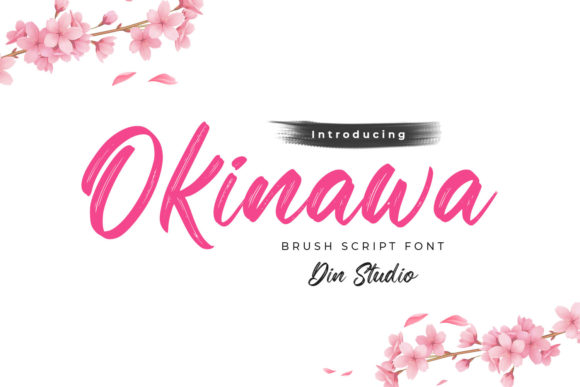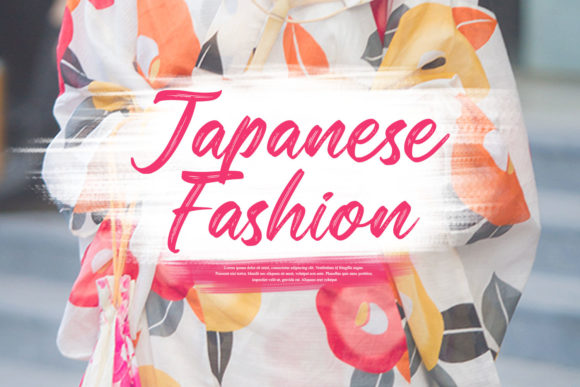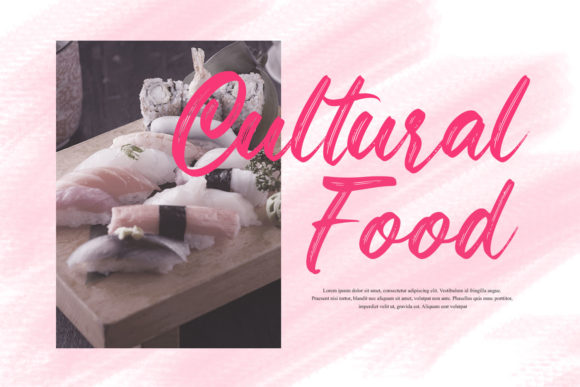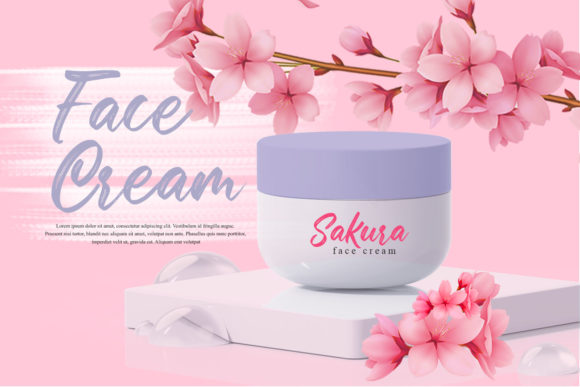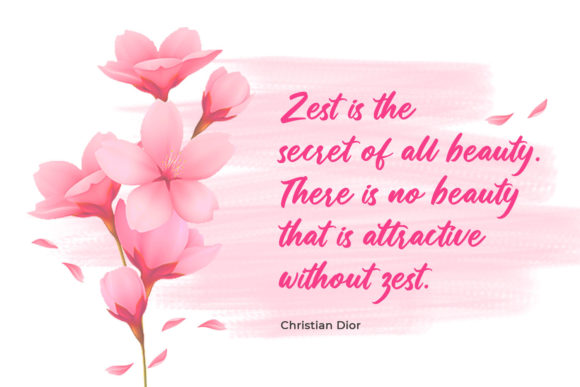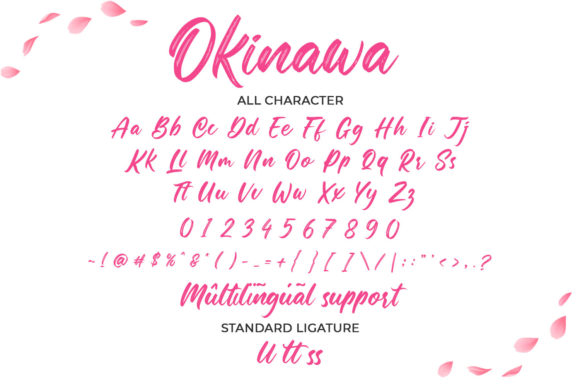
Okinawa Font
About Okinawa Font
Okinawa is a captivating and flowing handwritten font that exudes elegance and style. Created with the aid of an exceptional brush pen, this font possesses a natural and artistic feel, making it an excellent choice for a wide range of design projects. Here are some inspiring ways to utilize the Okinawa font and create stunning designs:
1. Wedding Invitations: Design romantic and captivating wedding invitations with Okinawa font, setting the perfect tone for a memorable celebration.
2. Thank You Cards: Create heartfelt and sincere thank you cards with Okinawa font, expressing gratitude with a touch of sophistication.
3. Quotes and Greeting Cards: Design inspiring and artistic quotes and greeting cards featuring Okinawa font, perfect for evoking emotions and sentiments.
4. Logos: Incorporate Okinawa font into logos for businesses or personal brands, adding a touch of authenticity and creativity.
5. Business Cards: Craft stylish and distinctive business cards using Okinawa font to make a lasting impression on potential clients and customers.
6. Social Media Graphics: Enhance your social media presence with eye-catching and artistic graphics created with Okinawa font.
7. Personal Branding: Use Okinawa font for personal branding materials such as letterheads, email signatures, and digital portfolios.
8. Art Prints: Create captivating and expressive art prints with Okinawa font to inspire and delight your audience.
9. Event Signage: Design elegant and welcoming event signage with Okinawa font to set the right atmosphere for any occasion.
10. Website Headings: Use Okinawa font for website headings and titles to add a touch of artistry and flair.
11. Scrapbooking: Create beautiful and expressive scrapbook pages using Okinawa font, adding a touch of art to your memories.
12. Gift Tags and Labels: Design unique and personalized gift tags and labels with Okinawa font to add an artistic finishing touch.
Okinawa font’s flowing and artistic nature makes it a versatile choice for various design projects, evoking a sense of elegance and creativity. Whether used in formal or informal contexts, this font adds a handcrafted and personal touch that resonates with a wide audience. Embrace the beauty of Okinawa font and infuse your designs with a touch of artistry and sophistication.